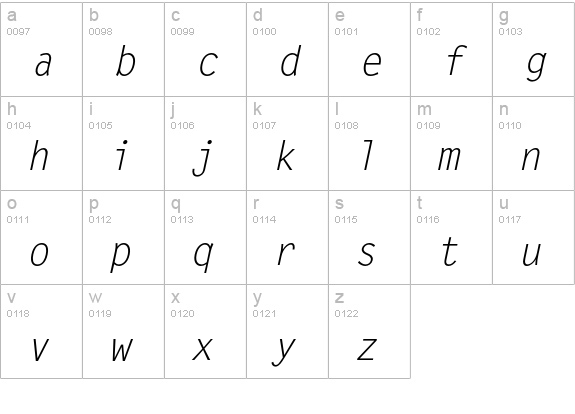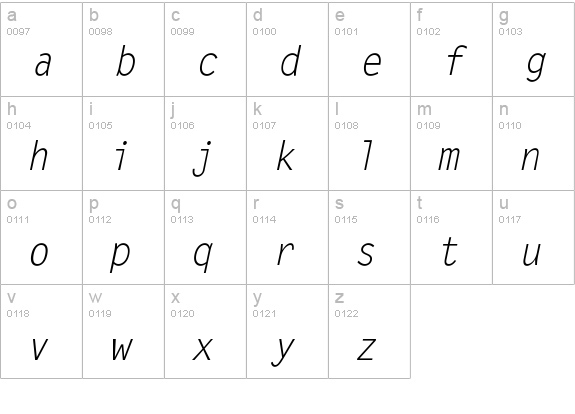
Letter Gothic Slanted Font Details
Letter Gothic Slanted font is a sleek and elegant typeface that combines the timeless charm of traditional letterforms with a contemporary slanted design. Its clean lines and sharp angles make it perfect for a wide range of applications, from headlines to body text. This font exudes a sense of modernity and professionalism, making it a versatile choice for both print and digital projects. Its slanted style adds a touch of dynamism and sophistication, making your text stand out with a subtle hint of stylish flair. One of the best things about Letter Gothic Slanted font is that it is free to download at FontsMarket.com. With just a few clicks, you can have this exceptional font at your fingertips, ready to elevate your design projects. Whether you are a professional designer or a passionate hobbyist, this font will undoubtedly become a valuable asset in your creative arsenal. The clarity and legibility of Letter Gothic Slanted font make it an excellent choice for various purposes, including branding, advertising, editorial design, packaging, and more. Its versatility is further enhanced by its compatibility with different design software and platforms, allowing you to seamlessly integrate it into your workflow. With its generous character set, Letter Gothic Slanted font offers a wide range of glyphs, including uppercase and lowercase letters, numerals, punctuation marks, and special characters. This ensures that you have all the tools you need to express your creativity and communicate your message effectively. Don't miss out on the opportunity to enhance your designs with this exceptional font. Visit FontsMarket.com today and download Letter Gothic Slanted font for free. Take your design projects to new heights with this stylish and reliable typeface that combines classic elegance with a contemporary twist.